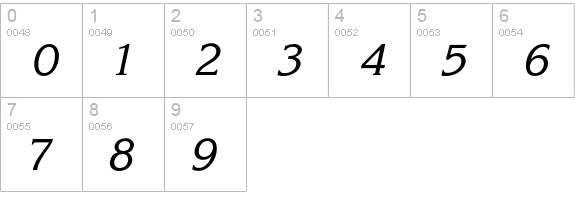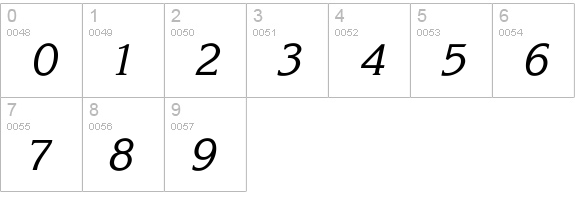
KorinnaKursiv Font Details
KorinnaKursiv is a stunning and elegant font that exudes sophistication and charm. Its delicate serifs and graceful curves give it a timeless appeal that is perfect for adding a touch of class to any design project. Whether you are creating wedding invitations, branding materials, or elegant signage, KorinnaKursiv will elevate your work to new heights. This exquisite font is not only beautiful but also versatile, making it suitable for a wide range of design applications. Its classic yet modern appearance ensures that it will stand the test of time and remain a go-to choice for designers looking to make a statement. And the best part? KorinnaKursiv is available for free download at FontsMarket.com. This means that you can add this beautiful font to your collection without breaking the bank. Don't miss out on the opportunity to enhance your designs with the timeless elegance of KorinnaKursiv. Download it today and see the difference it can make in your projects.